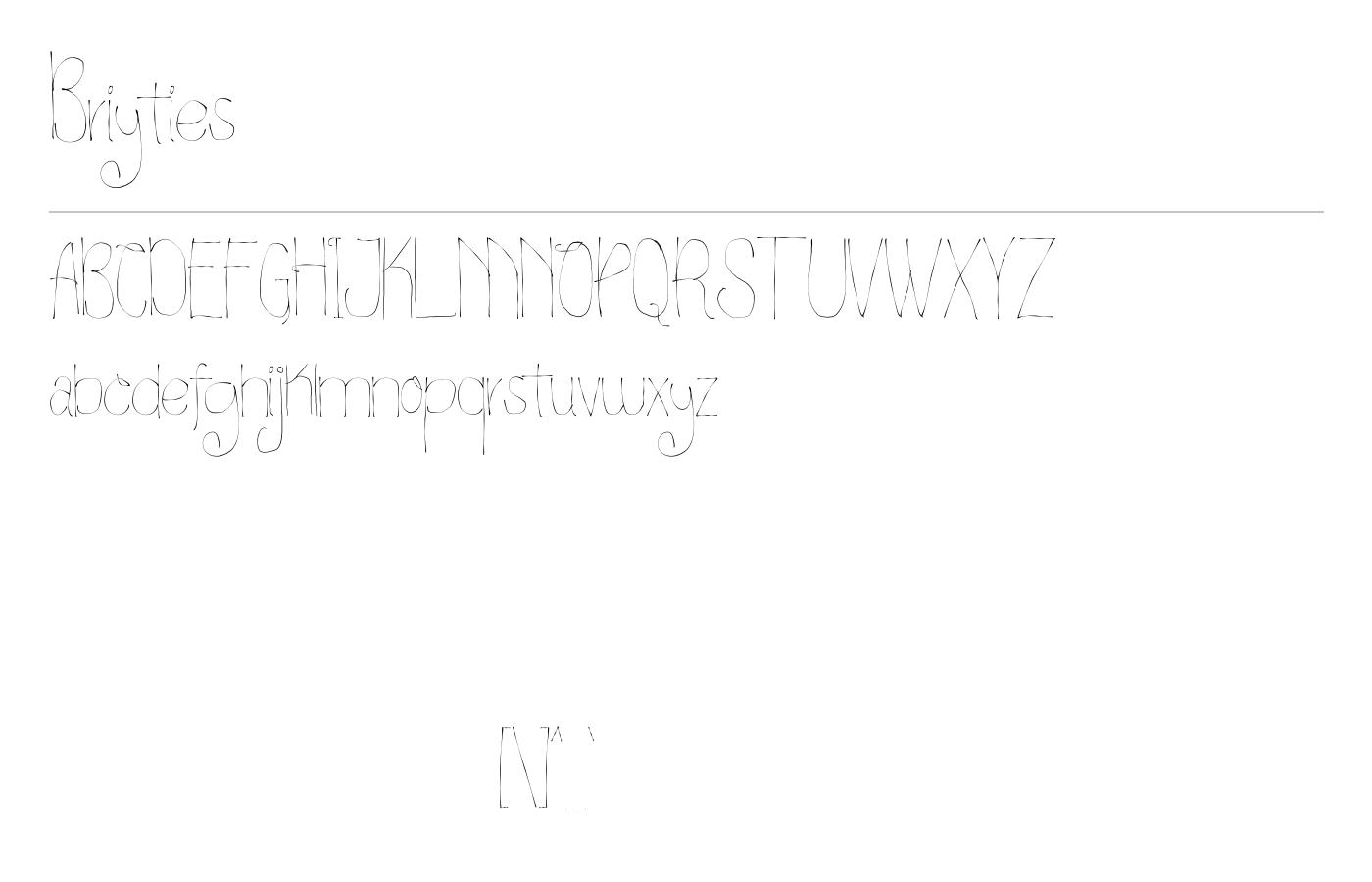
Briyties is a delicate, hand-drawn script font with a whimsical and airy feel. Its thin, elongated letterforms and playful curves give it a light, artistic charm perfect for creative projects, invitations, and branding that seeks a friendly, personal touch. This font works well in contexts where a unique, informal style is desired, adding a sense of elegance without heaviness.
Briyties Font
About Briyties Font
| Font family | Briyties Font |
| Designer | Putri Ayu Wulandari |